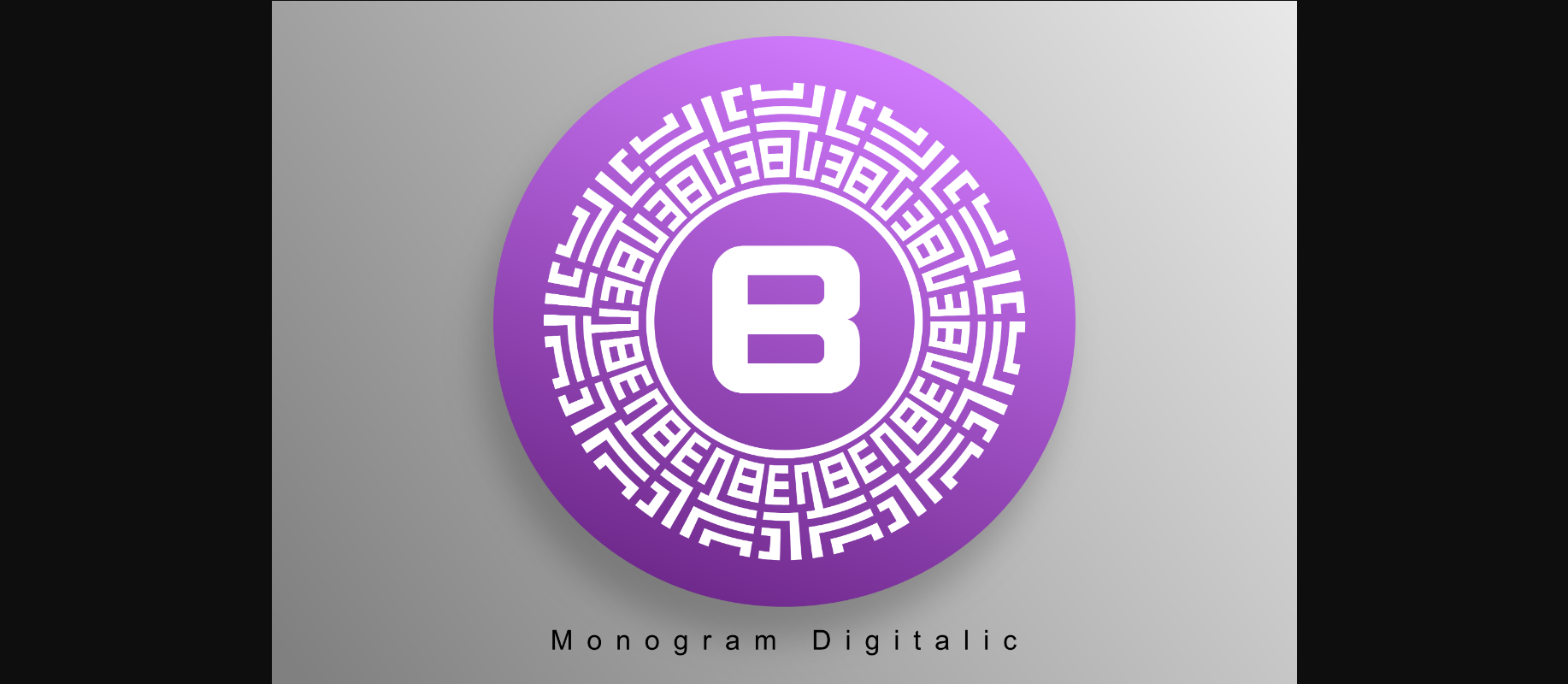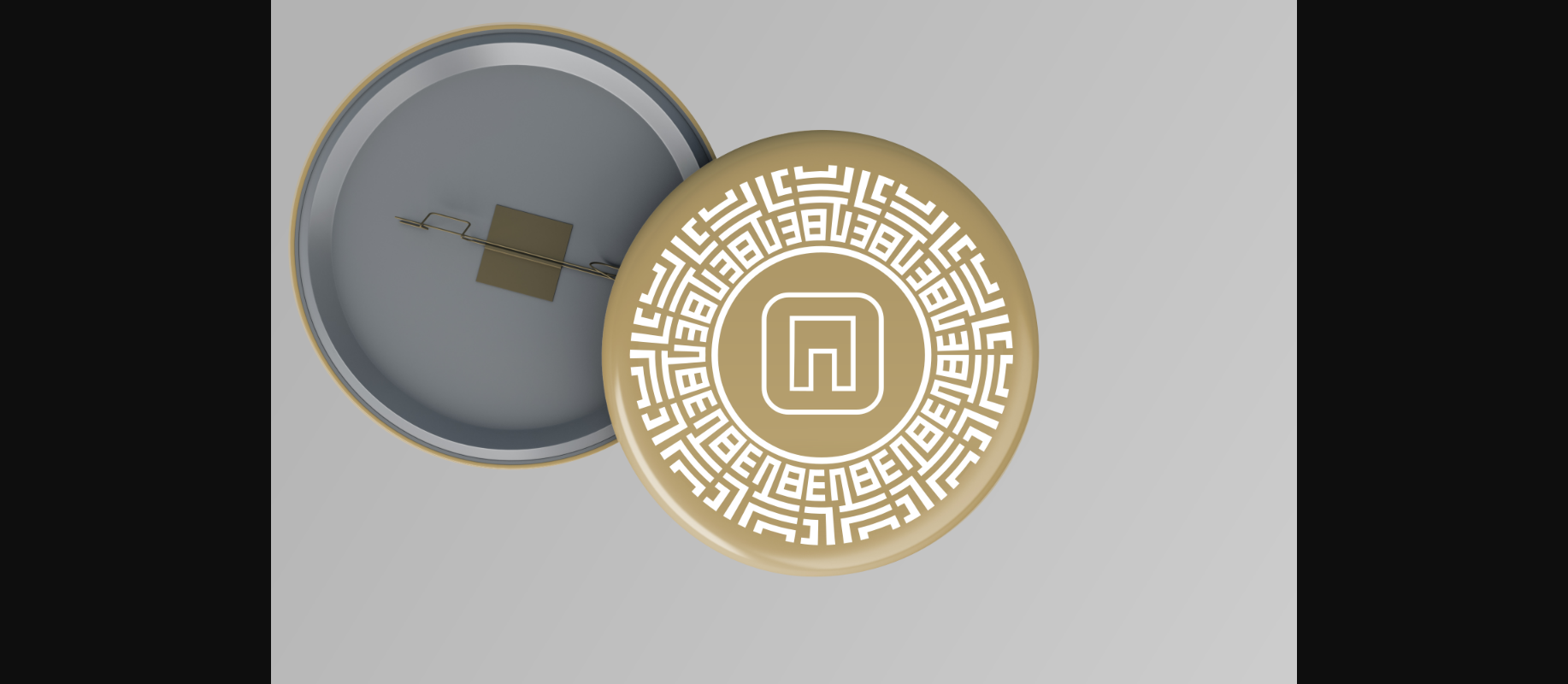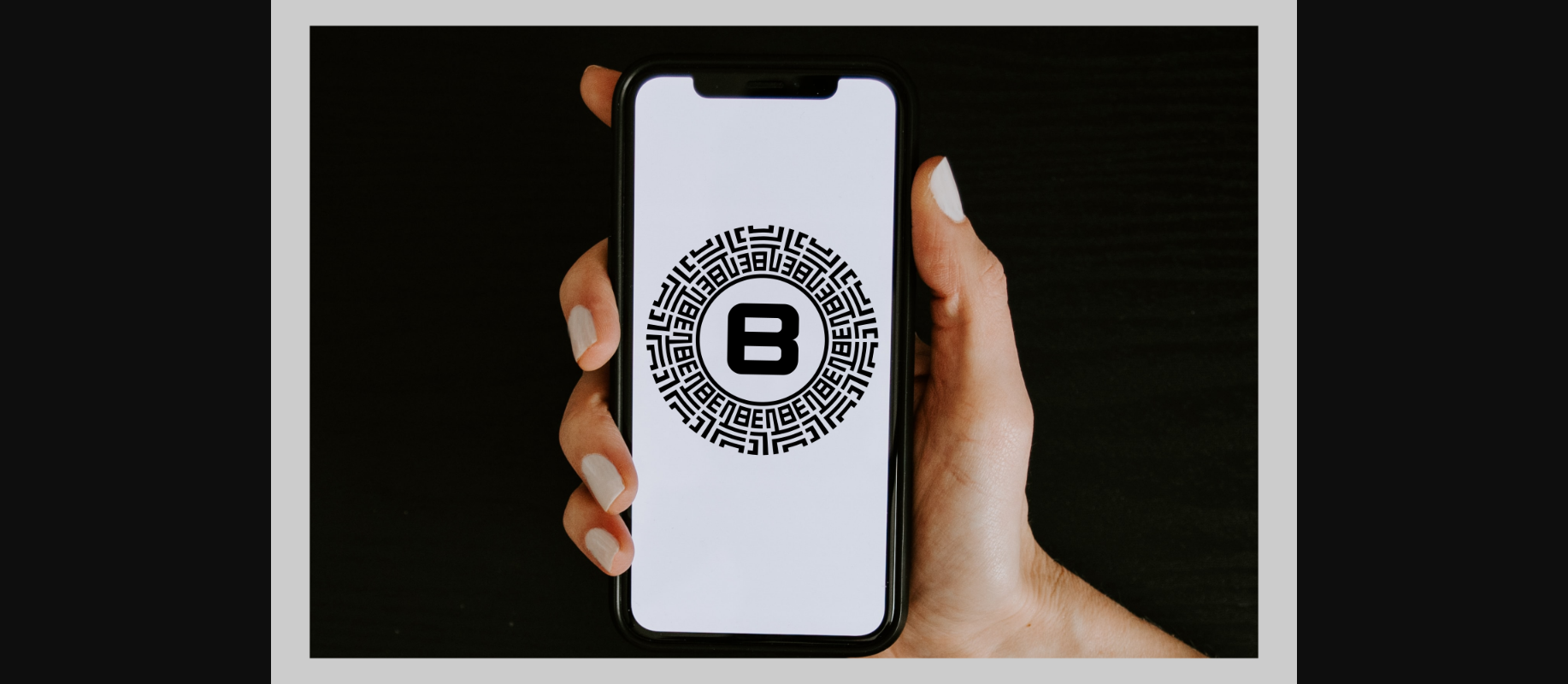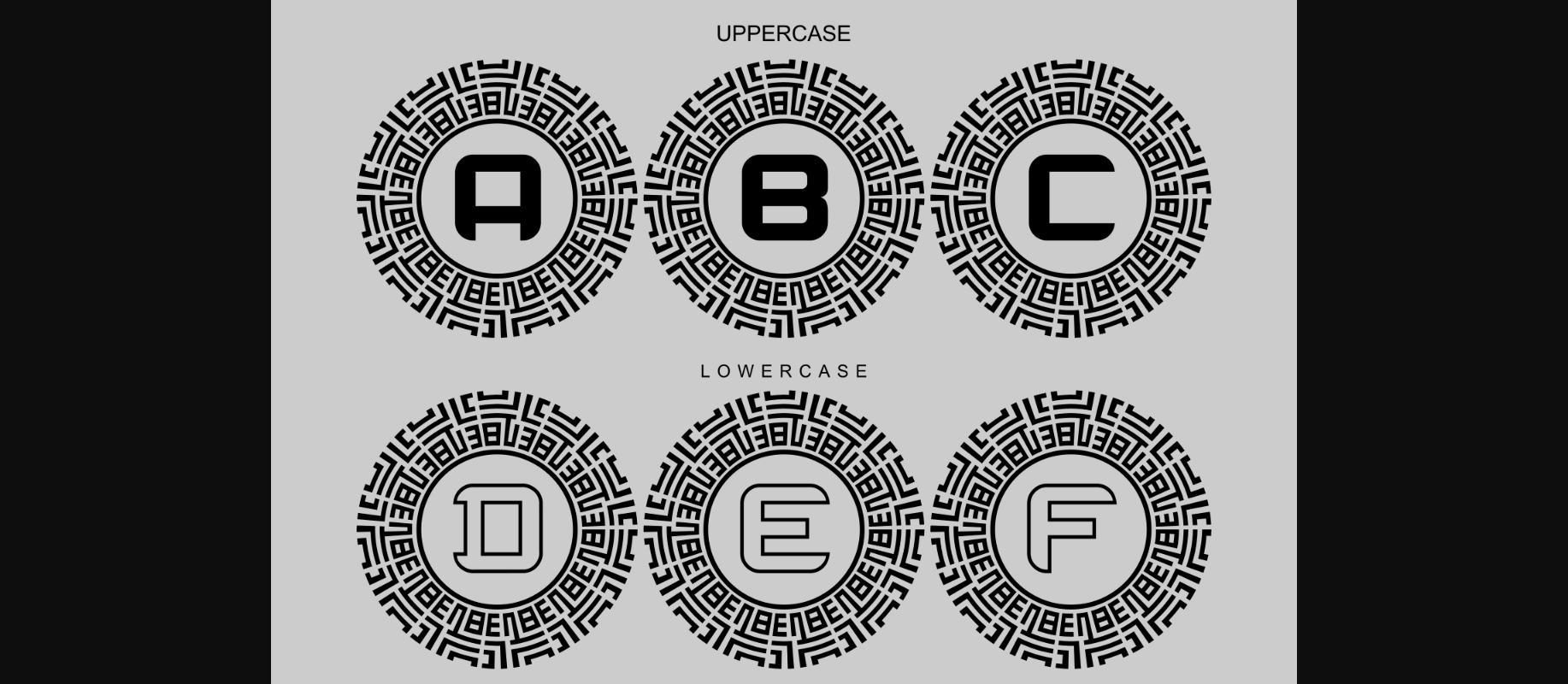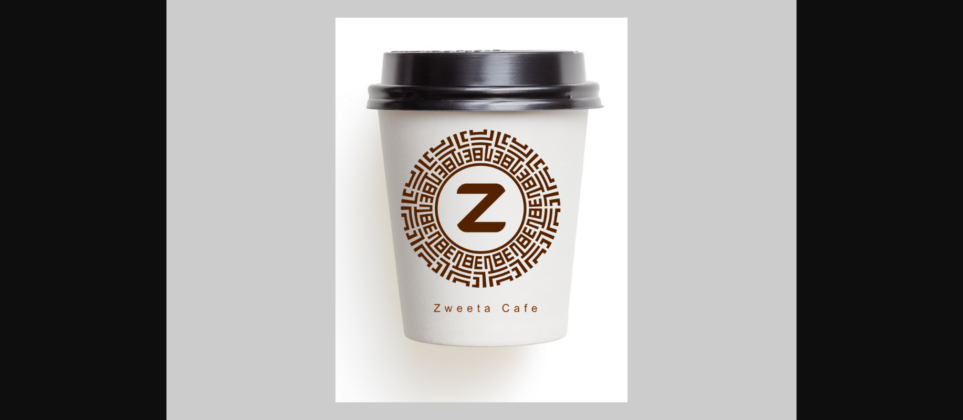
HomeDecorative FontsMonogram Digitalic Font Decorative Fonts Monogram Digitalic Font FacebookXPinterestWhatsApp 1 of 7 ... Monogram Digitalic Font Poster 2... Monogram Digitalic Font Poster 3... Monogram Digitalic Font Poster 4... Monogram Digitalic Font Poster 5... Monogram Digitalic Font Poster 6... Monogram Digitalic Font Poster 7... About Monogram Digitalic Font Monogram Digitalic is a highly detailed and beautiful decorative font. Add this lovely-looking font to each of your love letters, wedding invitations, or favorite design ideas, and you will be astounded by the outcome. DOWNLOAD NOW People also explored Blackecot Font Choco Chips Font Flattering Font Britta Connie Font Holy Christmas Tree Font Romansa Font Filmotype Liberty Fast Monk Font Notebook Christmas Font 395 0 TagsMonogram Digitalic Font Previous articleMonogram Digipast FontNext articleMonogram Digitalin Font LEAVE A REPLY Cancel reply Comment: Please enter your comment! Name:* Please enter your name here Email:* You have entered an incorrect email address! Please enter your email address here Website: Save my name, email, and website in this browser for the next time I comment. Personal Use Free Bestlife Personal Use Free Read more about this font Kredit Personal Use Free Read more about this font Breather Personal Use Free Read more about this font Messages Personal Use Free Read more about this font BLOG How to Cut Any Font on Cricut: Convert a Font to SVG (Free) Turn any font into a clean SVG so it cuts crisp on Cricut - a quick 3-step workflow using a free font-to-SVG tool. Exploring Font Trends To increase your work productivity, choose the most readable fonts. The 10 Best Handwriting Fonts to Add Personality to Your Designs